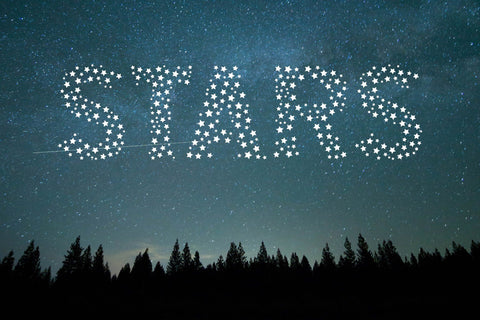
Color Stars Font
Color Stars is an incredibly original decorative font, featuring star ornaments. Incredibly dreamy and romantic, this font fits a wide pool of designs, elevating them to the highest levels. Add this font to your favorite creative ideas and notice how it makes them come alive!